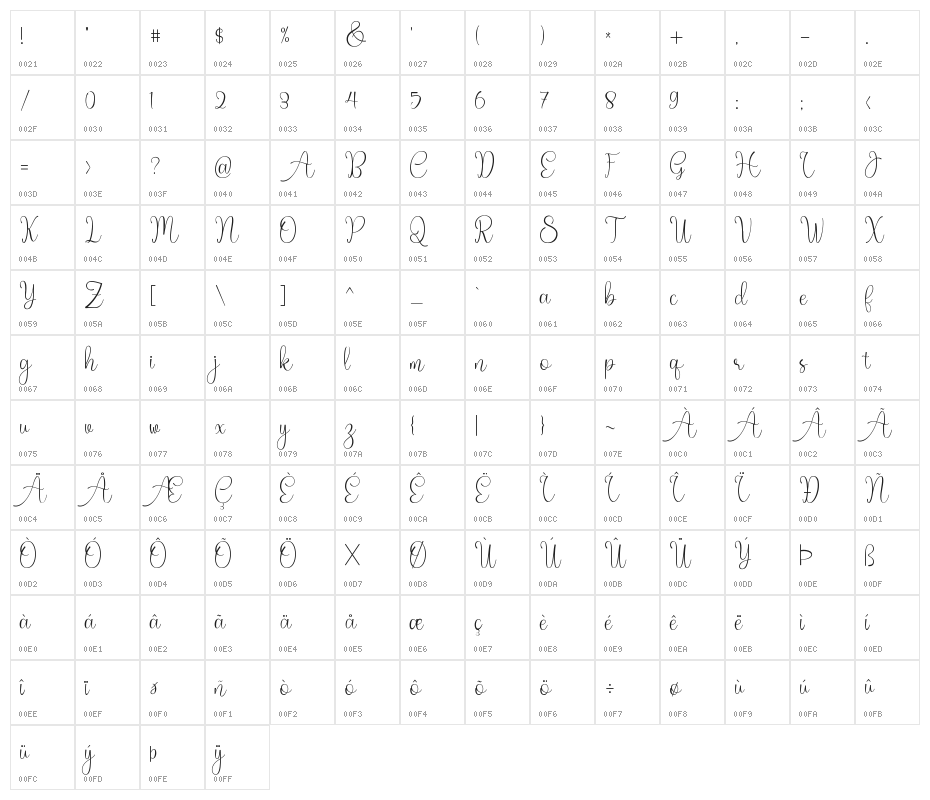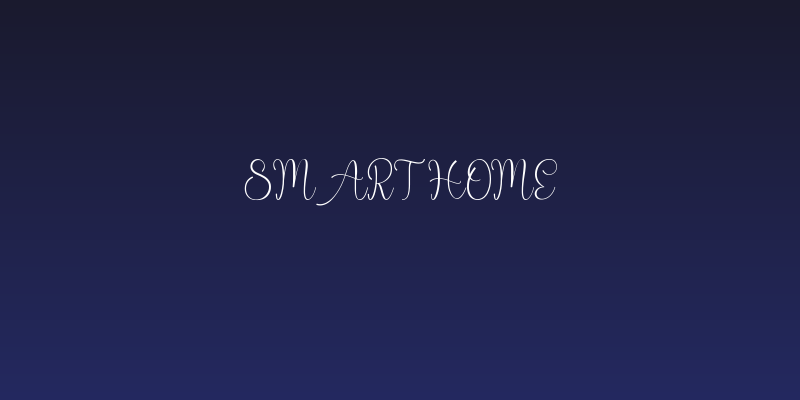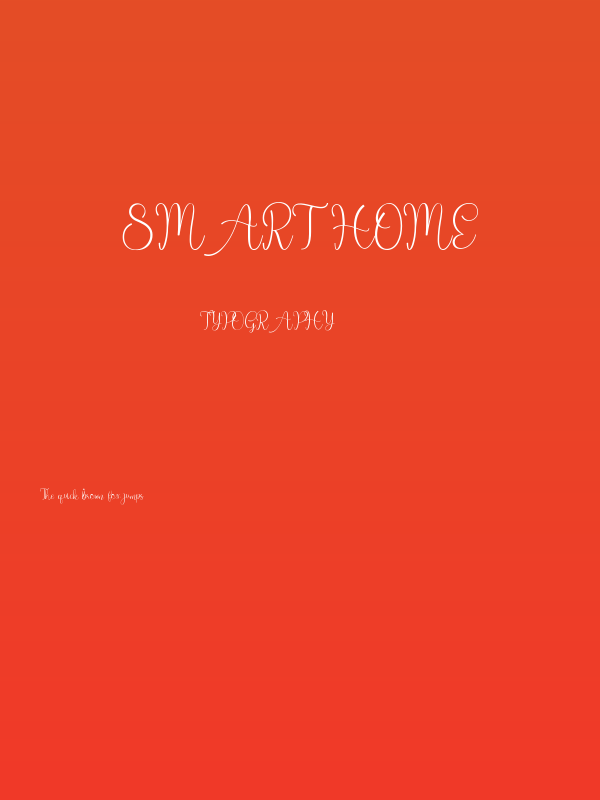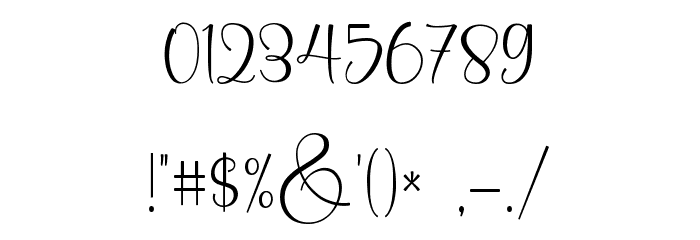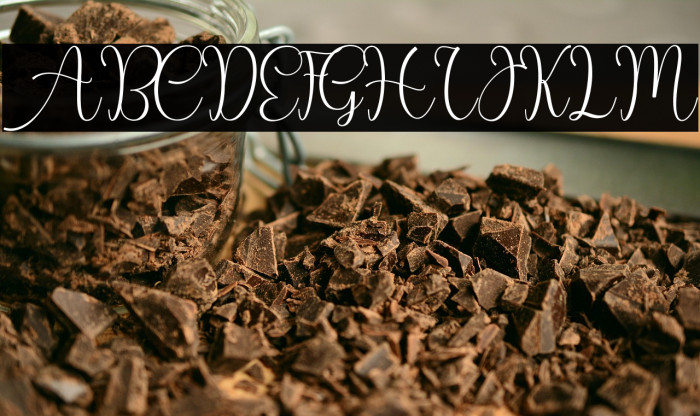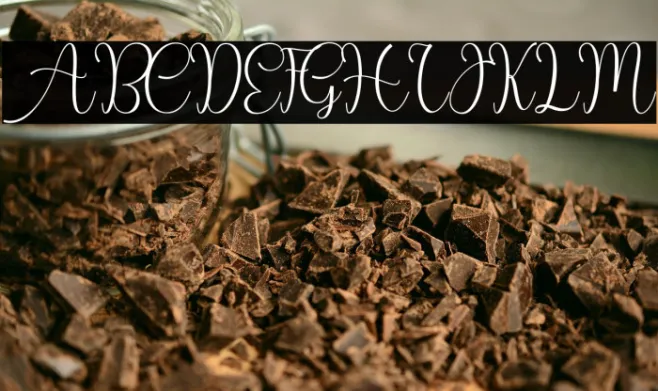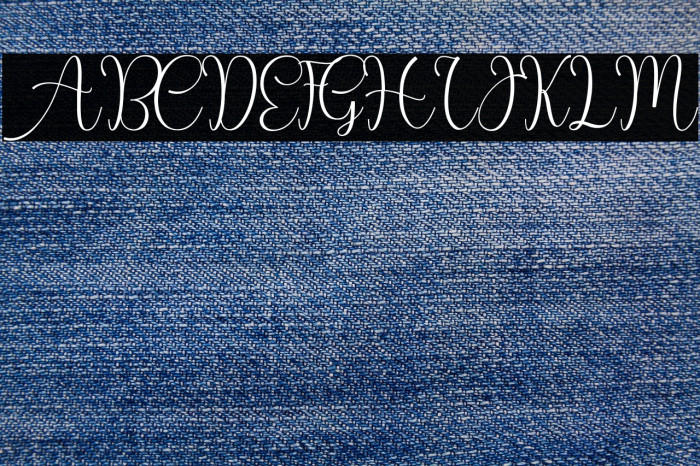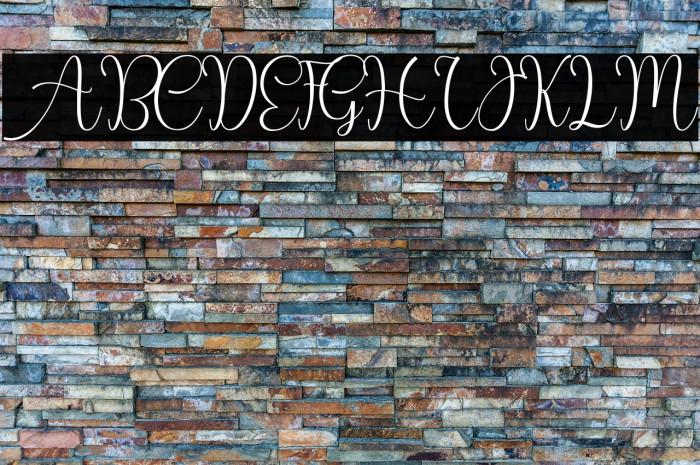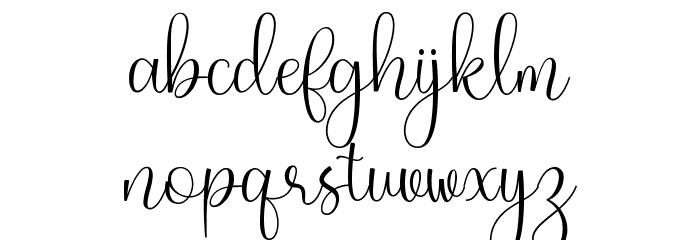
Smart home Font
Smart home Description
This font features an elegant and flowing script style, characterized by its smooth, cursive strokes and graceful curves. The uppercase letters are ornate with a slight flourish, while the lowercase letters maintain a consistent, connected flow that enhances readability. The numerals and special characters complement the overall aesthetic with their balanced and stylish design. This font exudes a sense of sophistication and charm, making it suitable for a variety of creative applications.
| Proposed Projects | Ideal for wedding invitations, greeting cards, branding projects, and elegant packaging designs. |